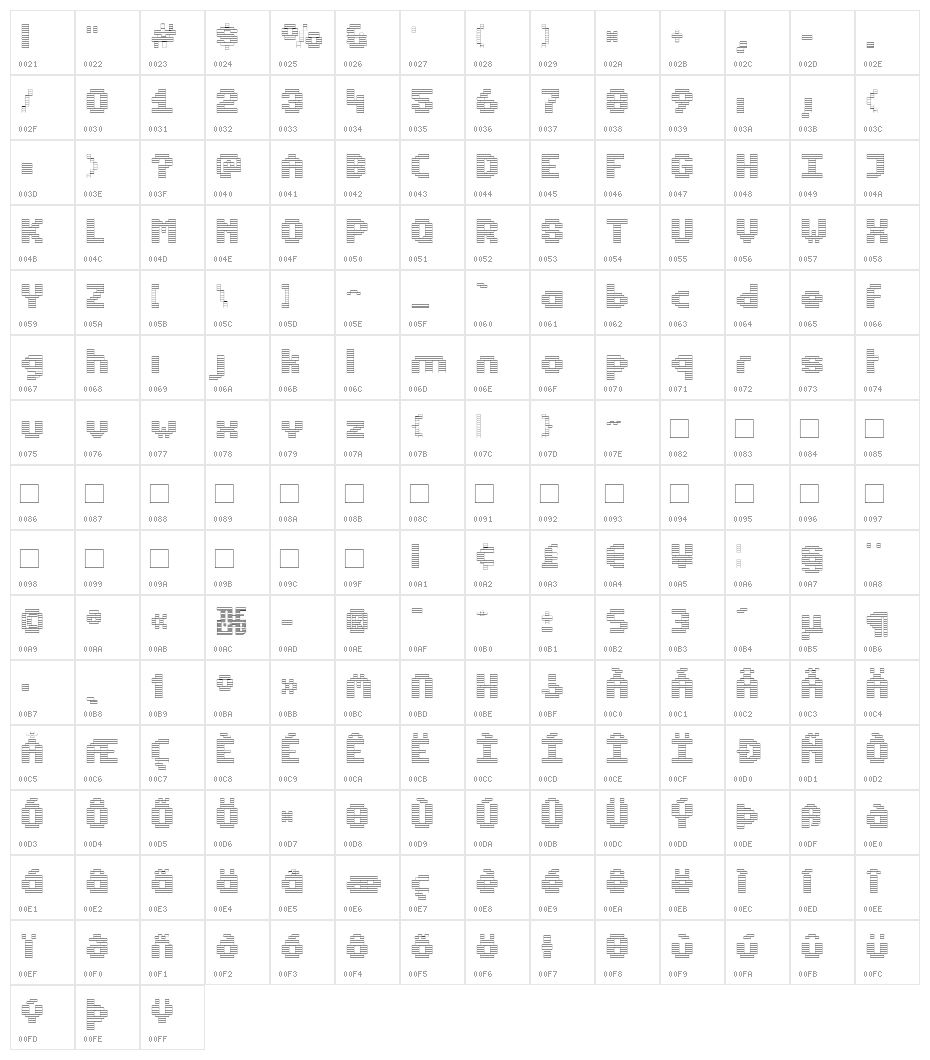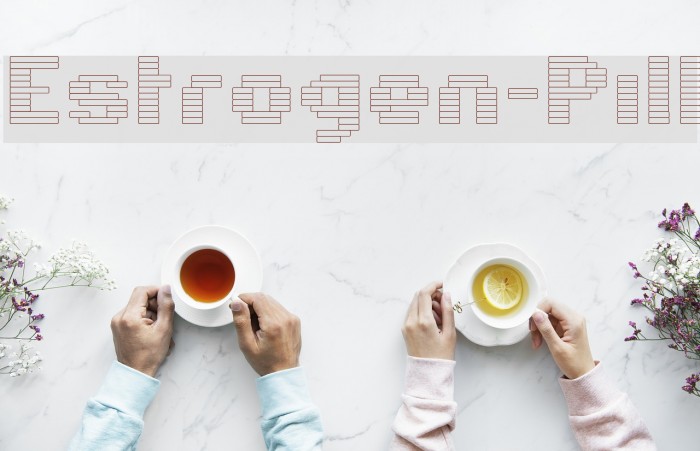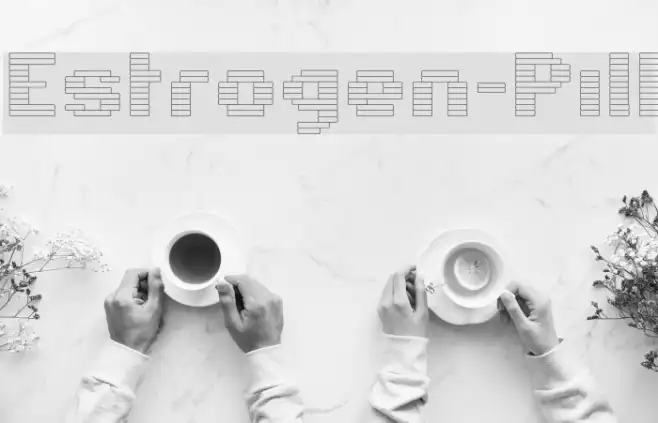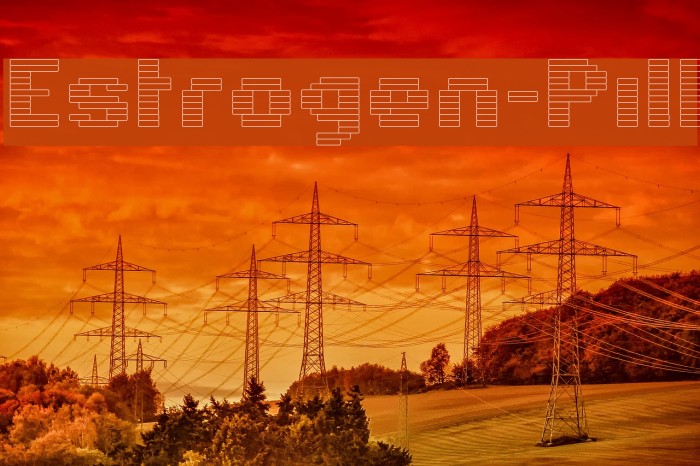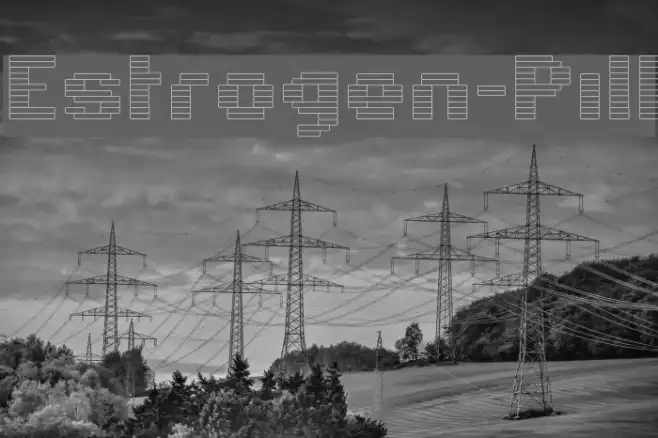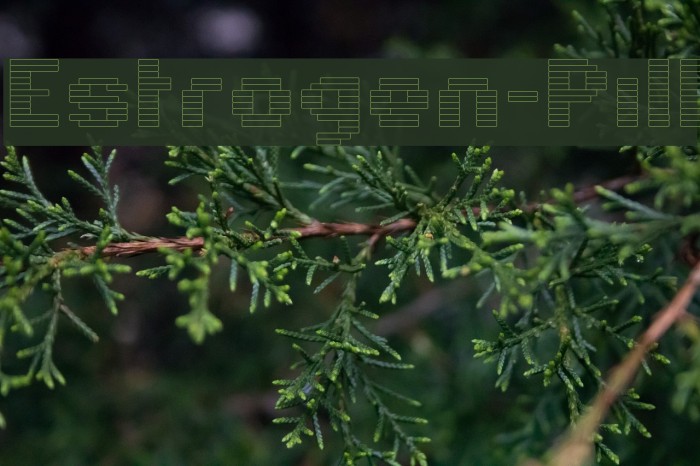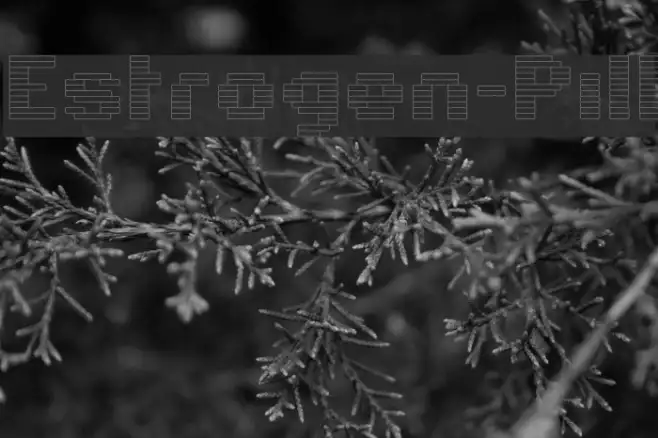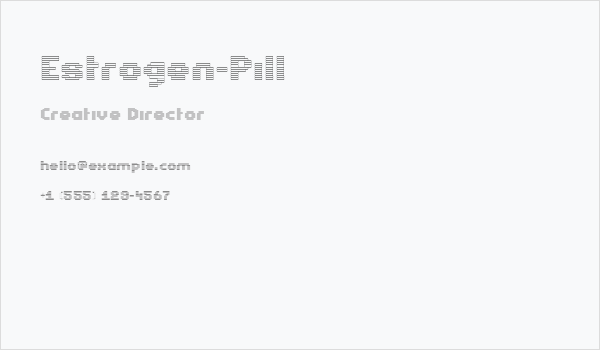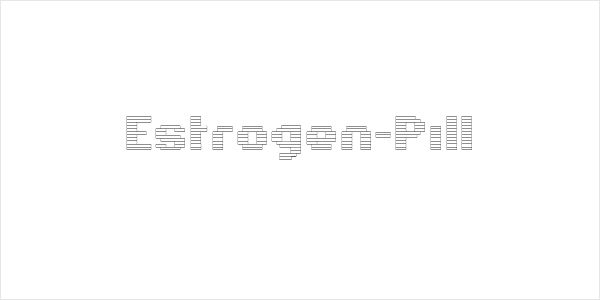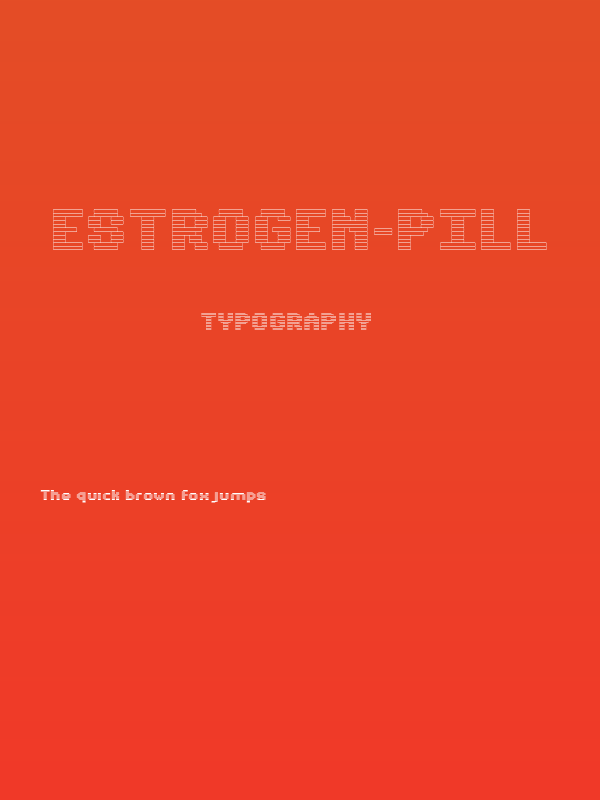
Estrogen-Pill Font
Estrogen-Pill Description
This font features a unique, geometric design with a distinct block-like structure. Each character is composed of horizontal lines stacked to form the letter shapes, giving it a modern and digital appearance. The consistent use of horizontal lines creates a cohesive look across all characters, including uppercase, lowercase, numbers, and special symbols. The font's design is reminiscent of pixel art, making it suitable for projects that require a retro or tech-inspired aesthetic. Its structured form ensures readability while maintaining a decorative flair.
| Use Case | Logos, Headlines, Digital Art |
| Proposed Projects | Ideal for digital art, tech-themed designs, video game graphics, and retro-style posters. |